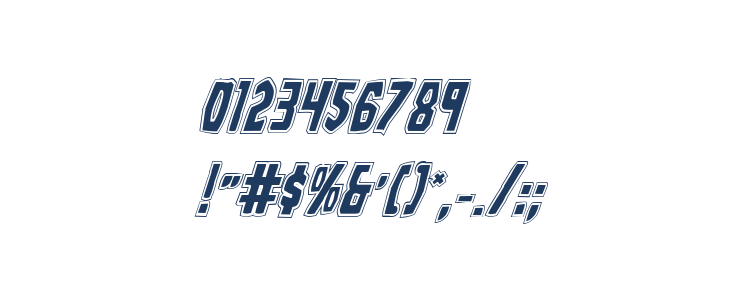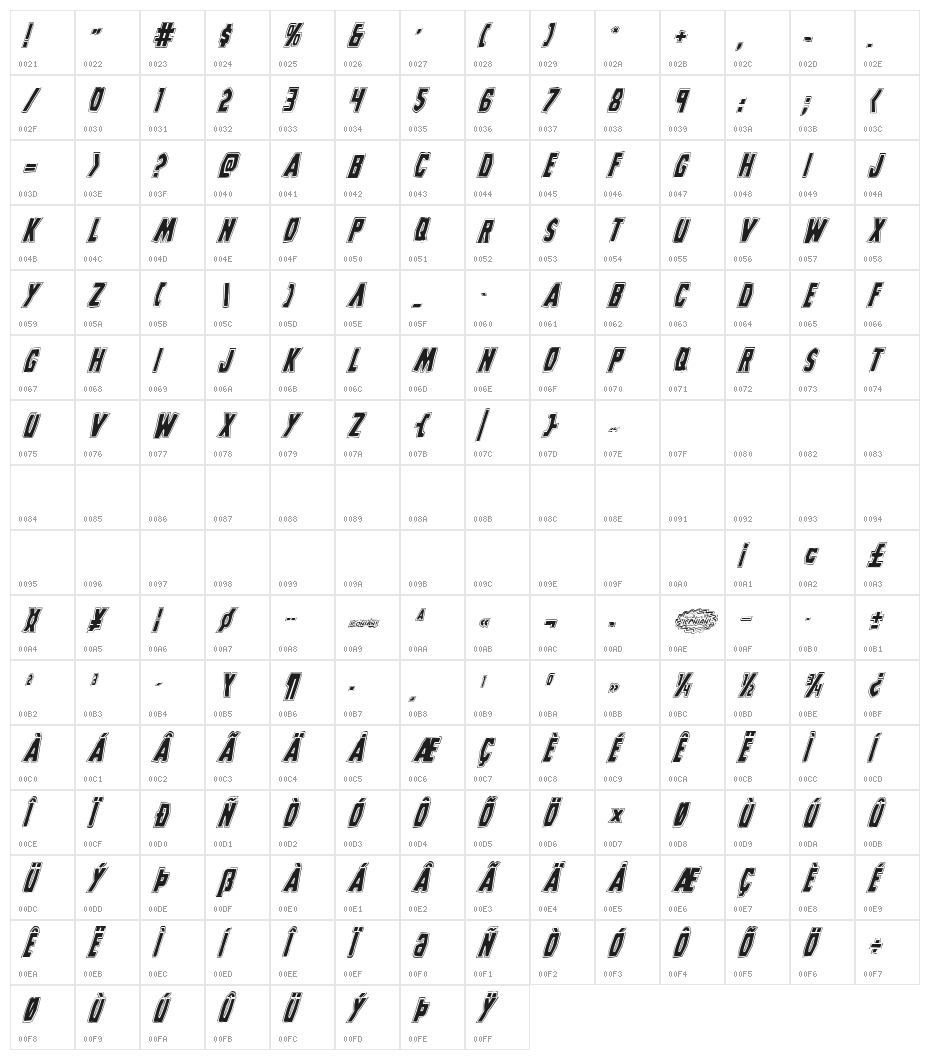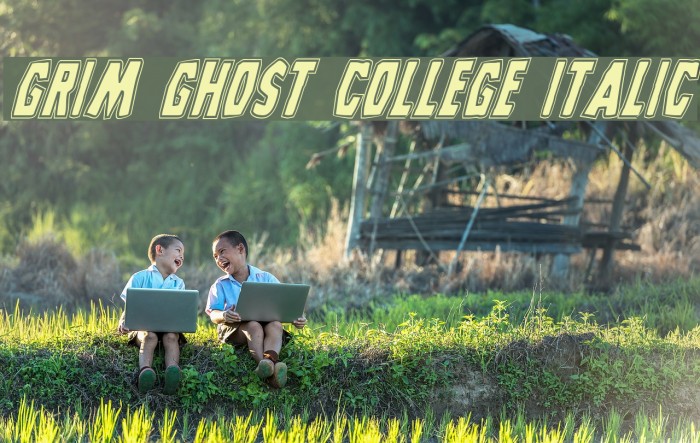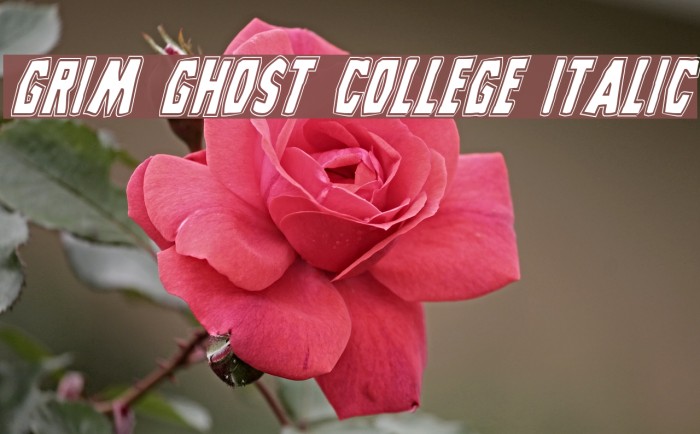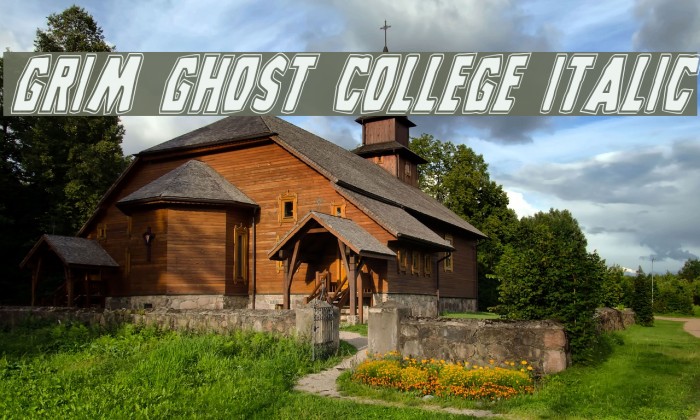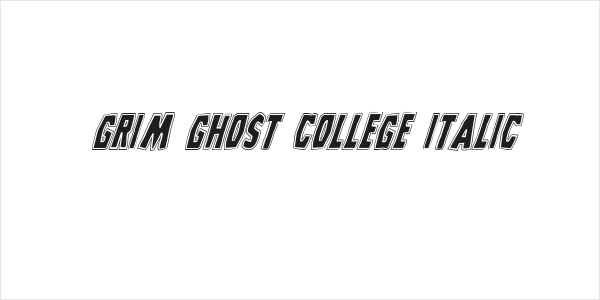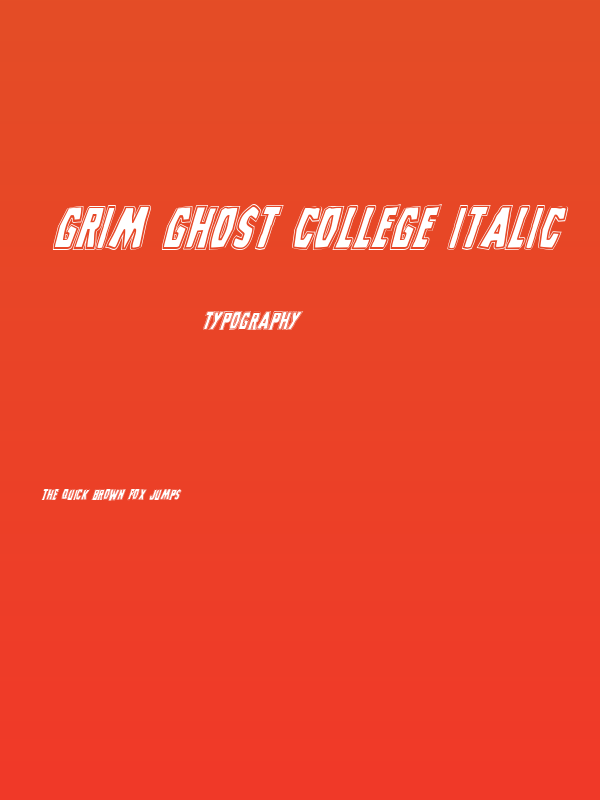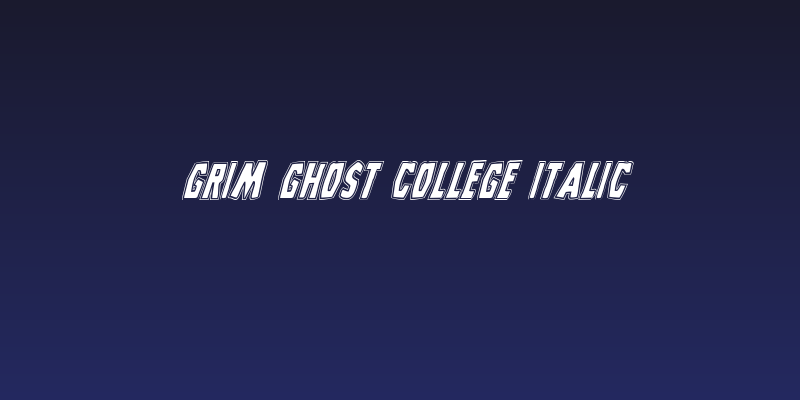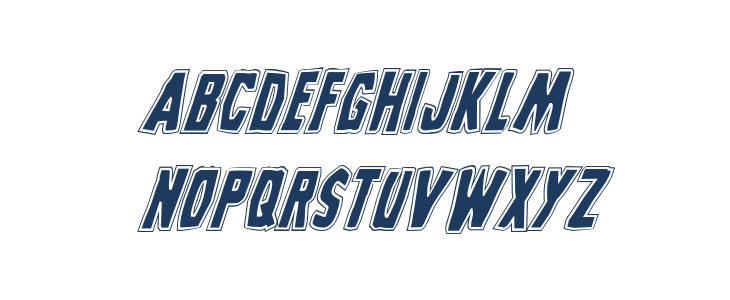
Grim Ghost College Italic Font
Grim Ghost College Italic Description
This font features a bold and dynamic style with a collegiate flair, characterized by its italicized and slightly slanted letterforms. The letters are outlined with a thick, contrasting border that enhances their visibility and impact. The font's design is reminiscent of athletic and varsity themes, making it ideal for projects that require a strong and energetic appearance. The uppercase letters are prominent, with a consistent height and width, while the numerals and special characters maintain the same bold aesthetic. The overall look is both modern and nostalgic, capturing the essence of traditional college sports typography.
| Overall Style | Modern, Vintage |
| Proposed Projects | Ideal for sports team branding, college event posters, merchandise, and any project needing a bold, energetic typeface. |